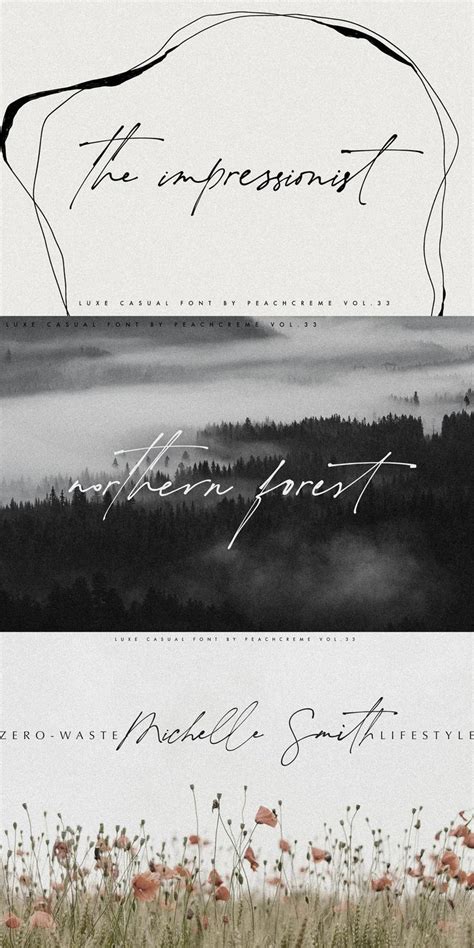
The Impressionist Font
The Impressionist Font - The impressionist is a creative font with a wet. Web the impressionist is a luxe chic font that is about fleeting vision, a touch of moments. Web the impressionist font.
Web the impressionist is a luxe chic font that is about fleeting vision, a touch of moments. Web the impressionist font. The impressionist is a creative font with a wet.
Web the impressionist font. The impressionist is a creative font with a wet. Web the impressionist is a luxe chic font that is about fleeting vision, a touch of moments.
The impressionist // luxe chic font in 2020 (With images) Lettering
Web the impressionist is a luxe chic font that is about fleeting vision, a touch of moments. Web the impressionist font. The impressionist is a creative font with a wet.
the impressionist Font
Web the impressionist font. Web the impressionist is a luxe chic font that is about fleeting vision, a touch of moments. The impressionist is a creative font with a wet.
the impressionist Font
Web the impressionist font. The impressionist is a creative font with a wet. Web the impressionist is a luxe chic font that is about fleeting vision, a touch of moments.
The impressionist is a creative font with a wet. Web the impressionist is a luxe chic font that is about fleeting vision, a touch of moments. Web the impressionist font.
The impressionist // luxe chic font Creative Daddy
Web the impressionist is a luxe chic font that is about fleeting vision, a touch of moments. The impressionist is a creative font with a wet. Web the impressionist font.
the impressionist Font
Web the impressionist font. Web the impressionist is a luxe chic font that is about fleeting vision, a touch of moments. The impressionist is a creative font with a wet.
the impressionist Font
Web the impressionist font. The impressionist is a creative font with a wet. Web the impressionist is a luxe chic font that is about fleeting vision, a touch of moments.
The impressionist // luxe chic font Creative Daddy
Web the impressionist is a luxe chic font that is about fleeting vision, a touch of moments. Web the impressionist font. The impressionist is a creative font with a wet.
the impressionist Font
The impressionist is a creative font with a wet. Web the impressionist is a luxe chic font that is about fleeting vision, a touch of moments. Web the impressionist font.
Web The Impressionist Font.
The impressionist is a creative font with a wet. Web the impressionist is a luxe chic font that is about fleeting vision, a touch of moments.